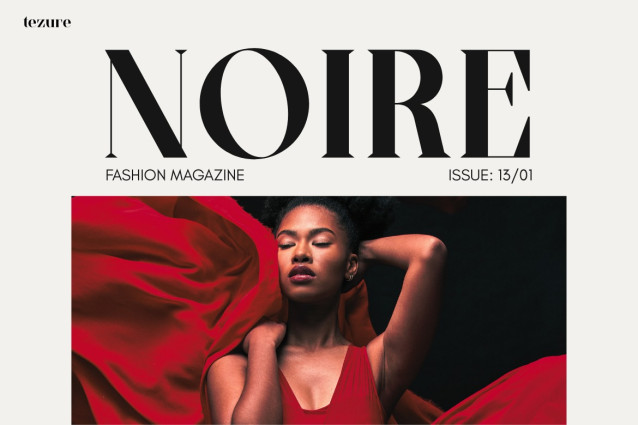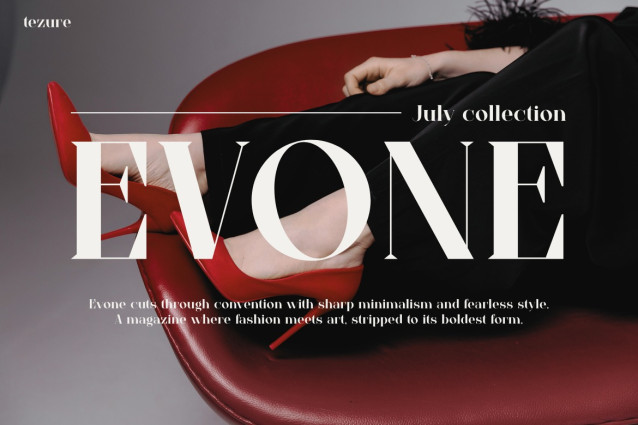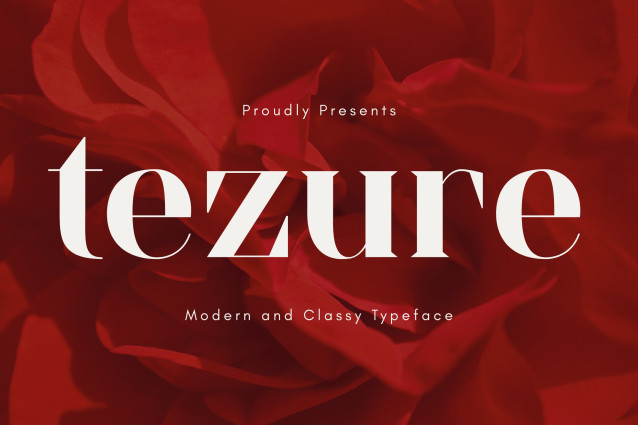
Tezure Font
Tezure Font is a modern serif typeface with a bold yet graceful style. It blends clean lines with elegant curves, creating a look that feels both timeless and fresh. This balance makes it perfect for luxury branding, while still being versatile enough for digital and print. Every letterform is designed to stand out, giving your projects a polished and professional touch.